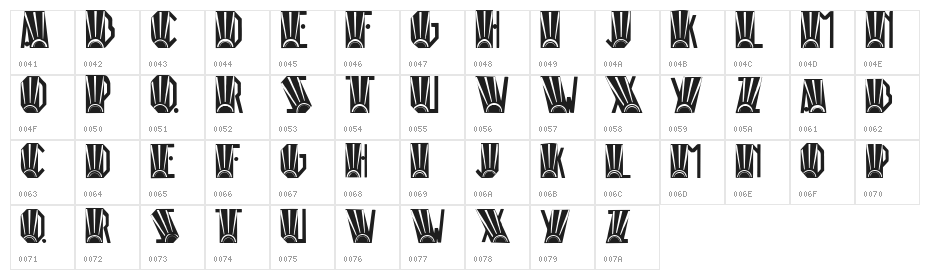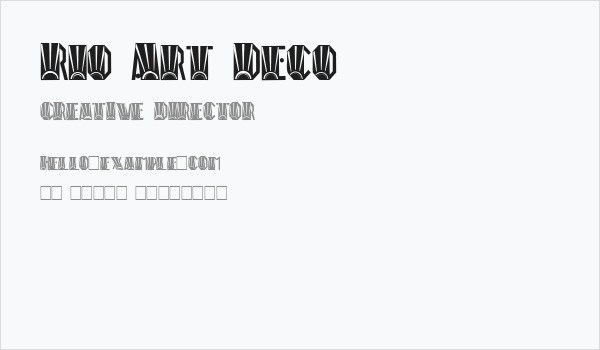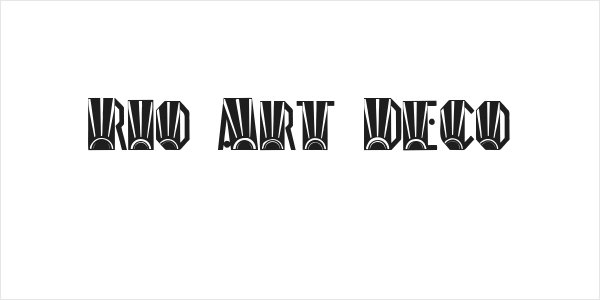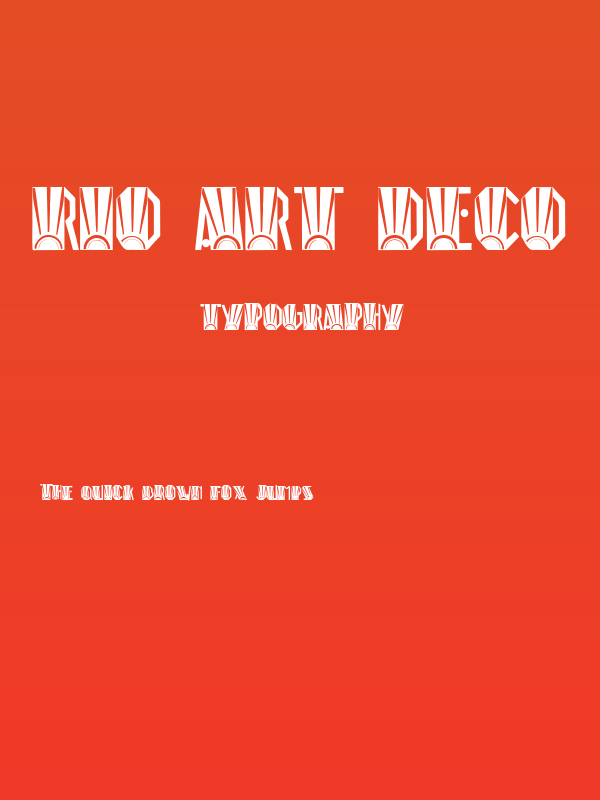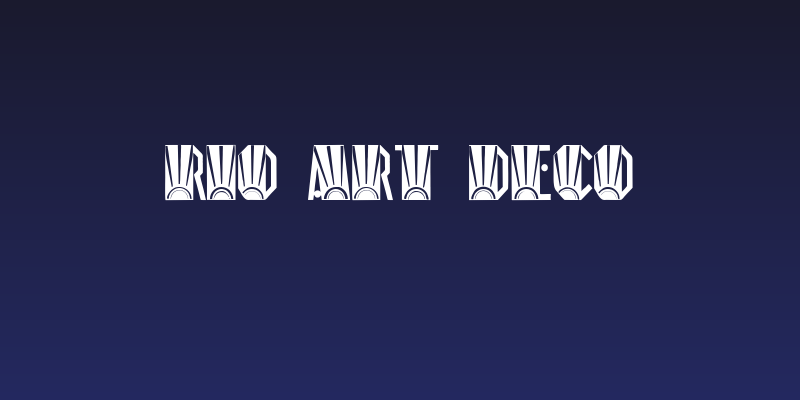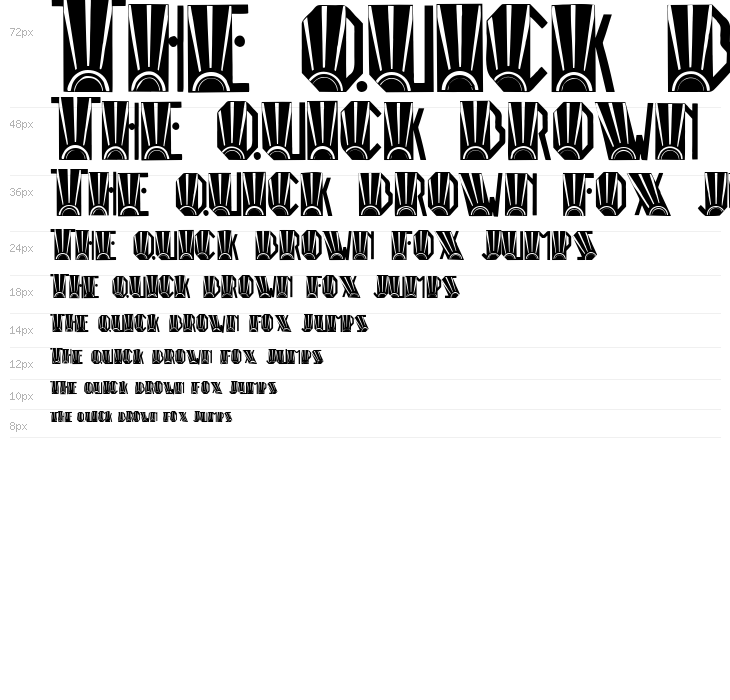
Rio Art Deco Font
Rio Art Deco Description
This font embodies the essence of the Art Deco movement, characterized by its bold geometric shapes and intricate detailing. The uppercase letters are adorned with symmetrical patterns that evoke a sense of luxury and sophistication. The design features strong vertical lines and decorative elements reminiscent of the 1920s and 1930s architectural styles. The font's unique aesthetic is achieved through the use of sharp angles and contrasting thick and thin lines, creating a striking visual impact. Its distinct style makes it ideal for projects that require a touch of elegance and historical flair.
| Proposed Projects | Ideal for vintage-themed posters, luxury brand logos, wedding invitations, and editorial design. |